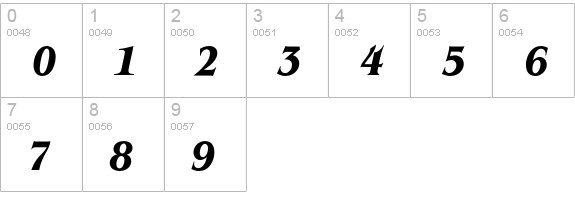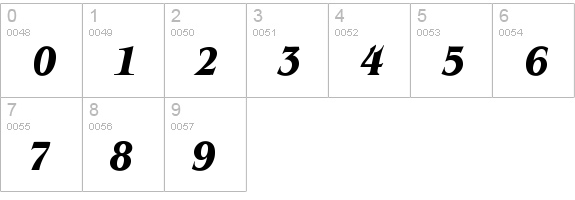
Benguiat* Condensed Bold Italic is a strong, high-contrast, condensed-width, italic variant in the Benguiat* typeface family \xE2\x80\x94 well suited to headlines, attention-grabbing titles, and strong calls-to-action.
Benguiat Condensed Bold Italic font is a dynamic and eye-catching typeface that exudes confidence and style. Its sleek and modern design is perfect for adding a touch of sophistication to any project. The bold italic style of this font commands attention and makes a bold statement. Whether you're creating a poster, logo, or website design, Benguiat Condensed Bold Italic font will surely make your text stand out. Best of all, this stunning font is available for free download at FontsMarket.com. With just a few clicks, you can enhance your design projects with the elegance and flair that Benguiat Condensed Bold Italic font brings. Don't miss out on this fantastic opportunity to elevate your typography game with this striking and versatile typeface. Download it today and let your creativity soar!